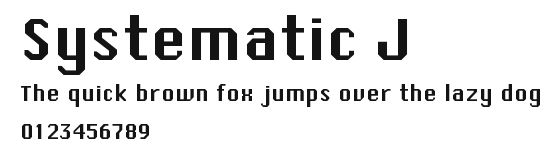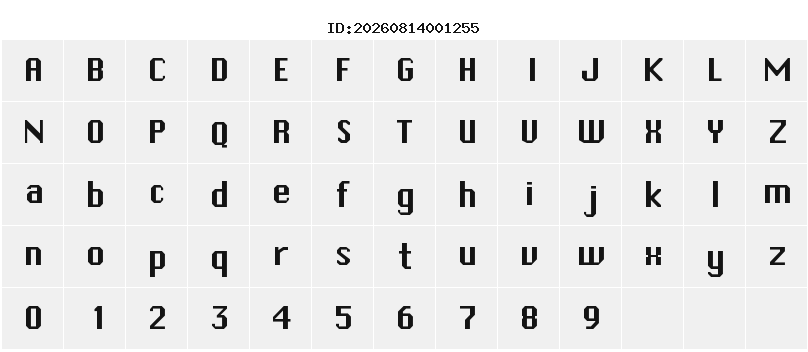
• Font Name: Systematic J
• Font Style: Cool
• Full Font Name: Systematic New J
About Systematic J.ttf
Systematic J.ttf is a modern, elegant sans-serif font designed for ultimate readability and visual harmony. Perfect for branding, headlines, web design, and print materials.